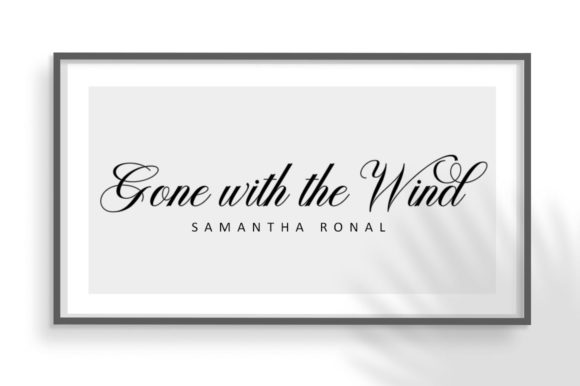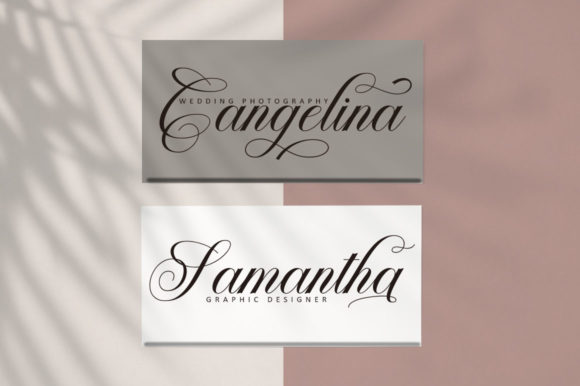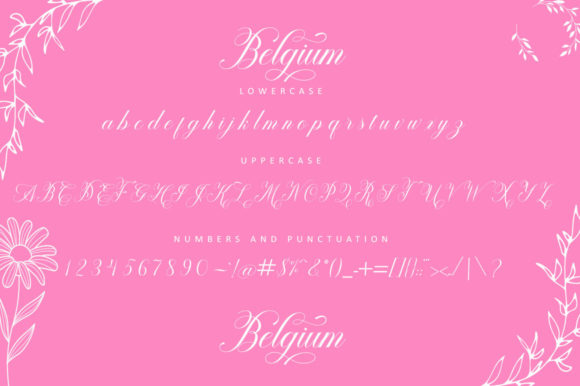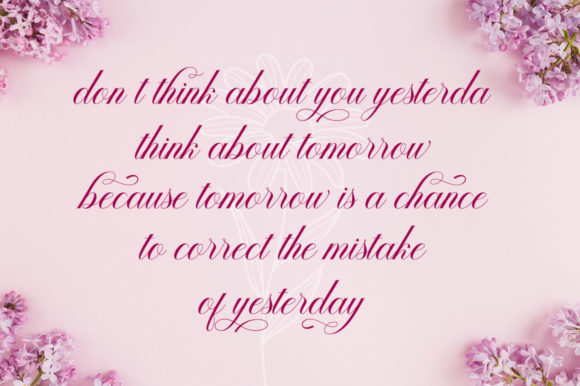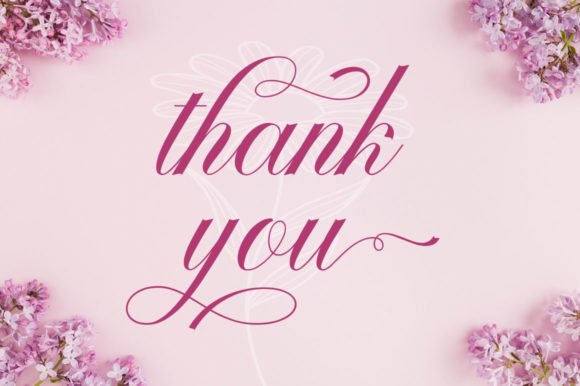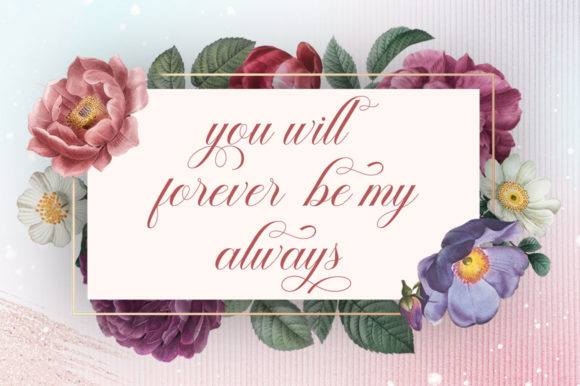
Introduction to Belgium Font
As a designer, have you ever stared at a blank canvas, searching for the perfect font to bring your creative project to life? That’s exactly what happened to me last week, when I was working on a new branding campaign for a client. I was browsing through a sea of fonts, but none seemed to capture the essence of the brand until I stumbled upon the Belgium Font. Its delicate, elegant, and flowing handwritten style immediately caught my attention, and I knew I had found the perfect match.
The Belgium Font is a high-quality design resource that offers a wide range of creative possibilities. Its beautiful and well-balanced characters make it an ideal choice for designers who want to add a touch of sophistication to their projects. With its smooth lines, gorgeous glyphs, and stunning alternates, this font is sure to elevate any design to the next level.
Key Features of Belgium Font
- High-quality design: Belgium Font is crafted with precision to deliver a sophisticated and elegant look perfect for creative projects.
- Unique characteristics: Belgium Font boasts a unique blend of modern and classic elements, making it an ideal choice for designers seeking a distinctive and high-quality design resource.
Honest Review: Belgium Font
As a designer, I’m always on the lookout for high-quality fonts that can elevate my creative projects. Recently, I had the chance to try out the Belgium Font, and I must say it’s a great addition to my design resource library.
- ✨ Transparent background that makes it easy to use with any image or design
- ✨ Great for designing logos, branding materials, and other visual identity elements
- ⚠️ Limited character set, which might not be ideal for longer text-based projects
- ⚠️ May not be suitable for projects that require a lot of font variations or sizes
Tips for Getting the Most Out of Belgium Font
Belgium Font is commonly used in logos, branding materials, and marketing materials. Its unique and elegant design makes it a great choice for creative projects that require a high-quality, professional look.